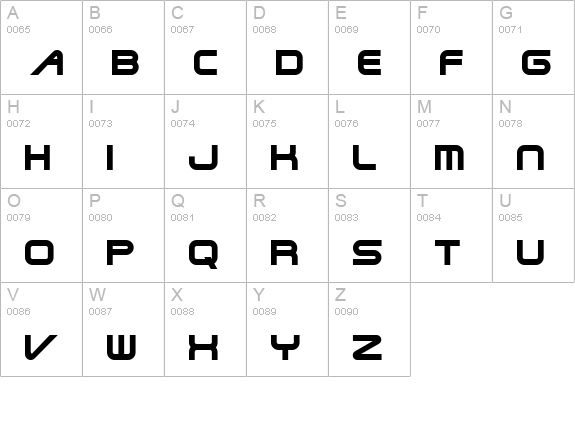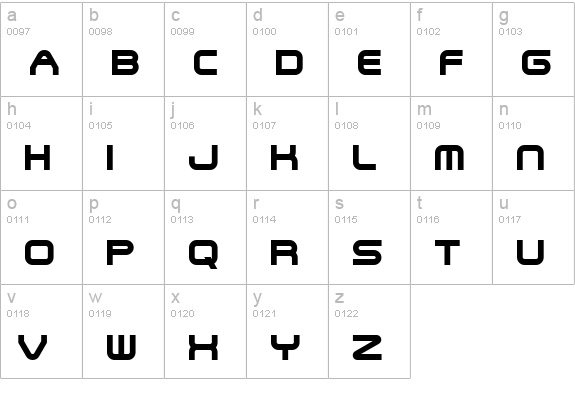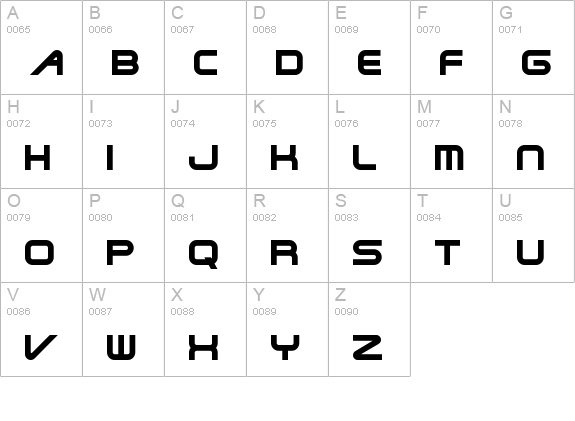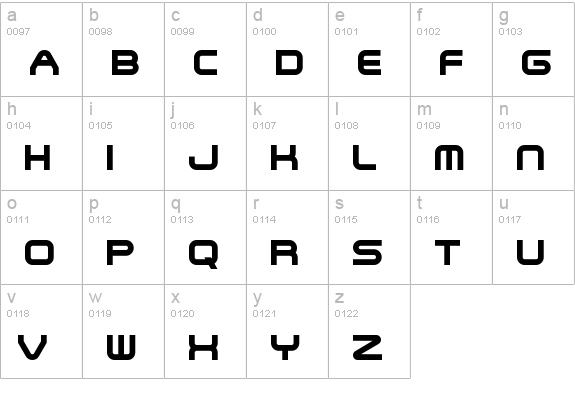
Steel Regular is the standard, neutral variant in the Steel typeface family \xE2\x80\x94 well suited to general body text, paragraphs, and standard typographic work.
Steel Regular is a sleek and modern font that embodies strength and resilience. Its clean lines and bold appearance make it perfect for a wide range of design projects, from branding to advertising. This versatile typeface exudes confidence and professionalism, making it a great choice for businesses and individuals alike. The Steel Regular font is available in a variety of weights, allowing for flexibility and creativity in your designs. Whether you need a bold headline or a subtle body text, this font has you covered. Its well-balanced letterforms ensure legibility at any size, making it suitable for both print and digital applications. One of the best things about Steel Regular is that it is free! That's right, you can download this amazing font for no cost at all. Simply visit FontsMarket.com and start using it in your projects today. With its high-quality design and extensive character set, Steel Regular is sure to elevate your designs and make a lasting impression. So why wait? Take advantage of this incredible opportunity to enhance your designs with the Steel Regular font. Download it for free at FontsMarket.com and experience the power and versatility of this exceptional typeface.